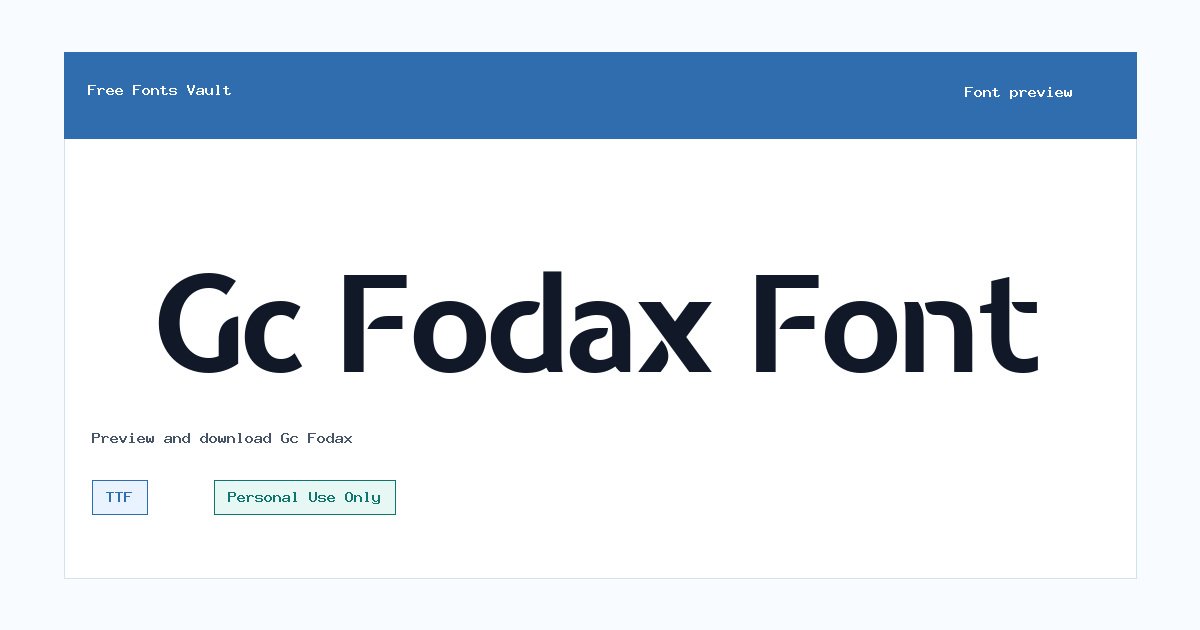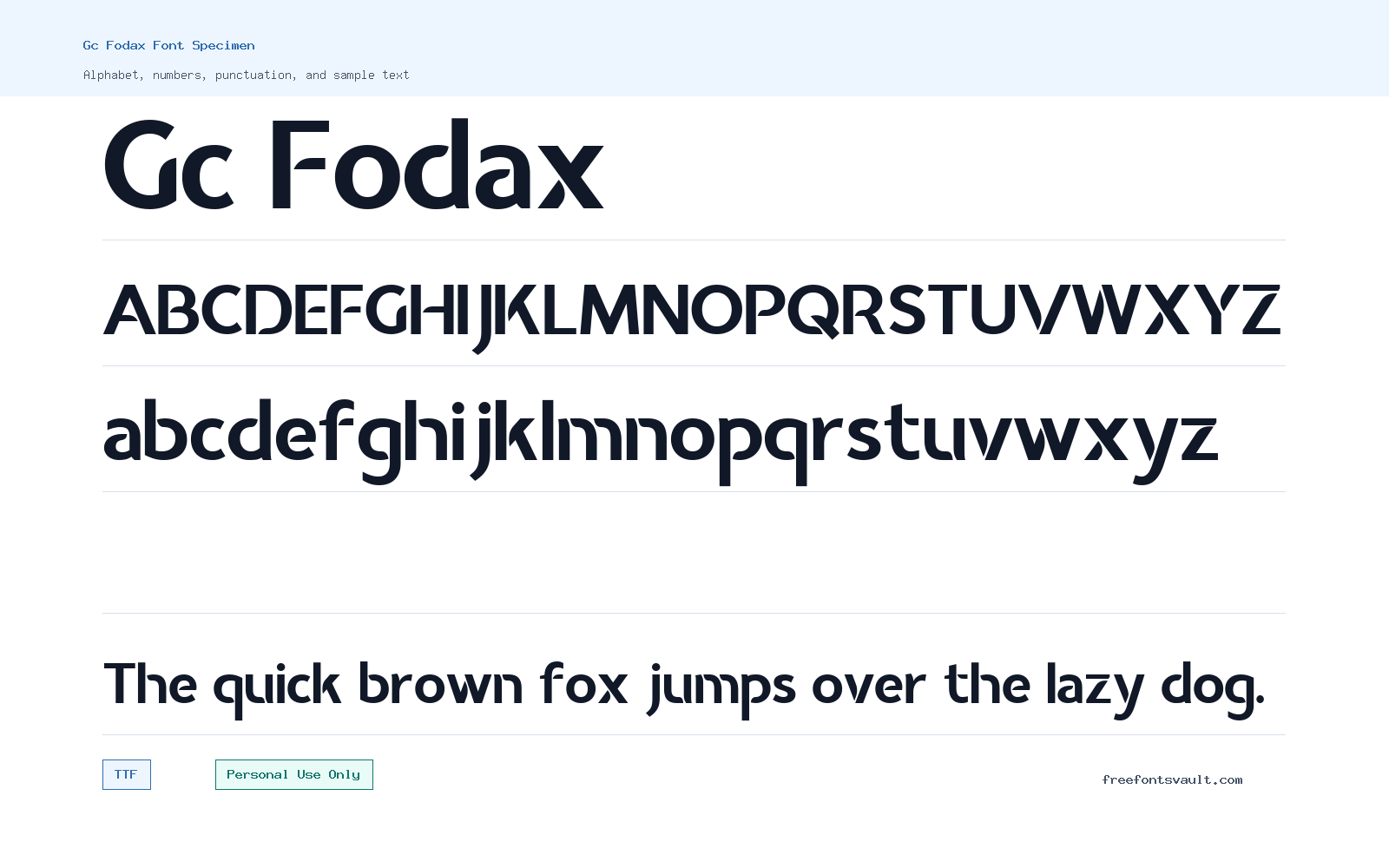
Gc Fodax
- Designer Abel Aurelia Thalitha of Glyphonic
Gc Fodax is a sans serif font with a clean demo TTF file for personal projects, previews, and design testing.
About Gc Fodax Font
Gc Fodax is credited to Abel Aurelia Thalitha of Glyphonic. The font is presented as a sans serif typeface, which makes it a practical choice to test for headings, short labels, display text, and simple visual layouts. Since the available file is a demo regular style, the safest way to judge it is through the live preview: type your own words, check spacing between letters, and see how it handles both uppercase and lowercase text before downloading.
Use Gc Fodax where a straightforward sans serif can help keep the design clear without adding too much decoration. It may work well for poster text, social graphics, website mockups, logo drafts, title treatments, and branding experiments, especially when the text is short enough to preview carefully. For longer paragraphs, test line spacing and size first, because a font that looks good in a headline may not stay comfortable in body copy. Pair it with a simple serif or neutral sans serif if you need contrast, but avoid using too many display-style fonts in one design.
- Sans serif design suited for short text previews and layout testing
- Personal design mockups, posters, and social media graphics
- Headline tests, logo drafts, title text, and branding experiments
Gc Fodax is credited to Abel Aurelia Thalitha of Glyphonic.
Who designed Gc Fodax?
Gc Fodax is credited to Abel Aurelia Thalitha of Glyphonic.
What kind of projects should I test it with?
Start with short text such as headings, names, poster lines, social graphics, and logo drafts. Test longer text separately before relying on it for paragraphs.